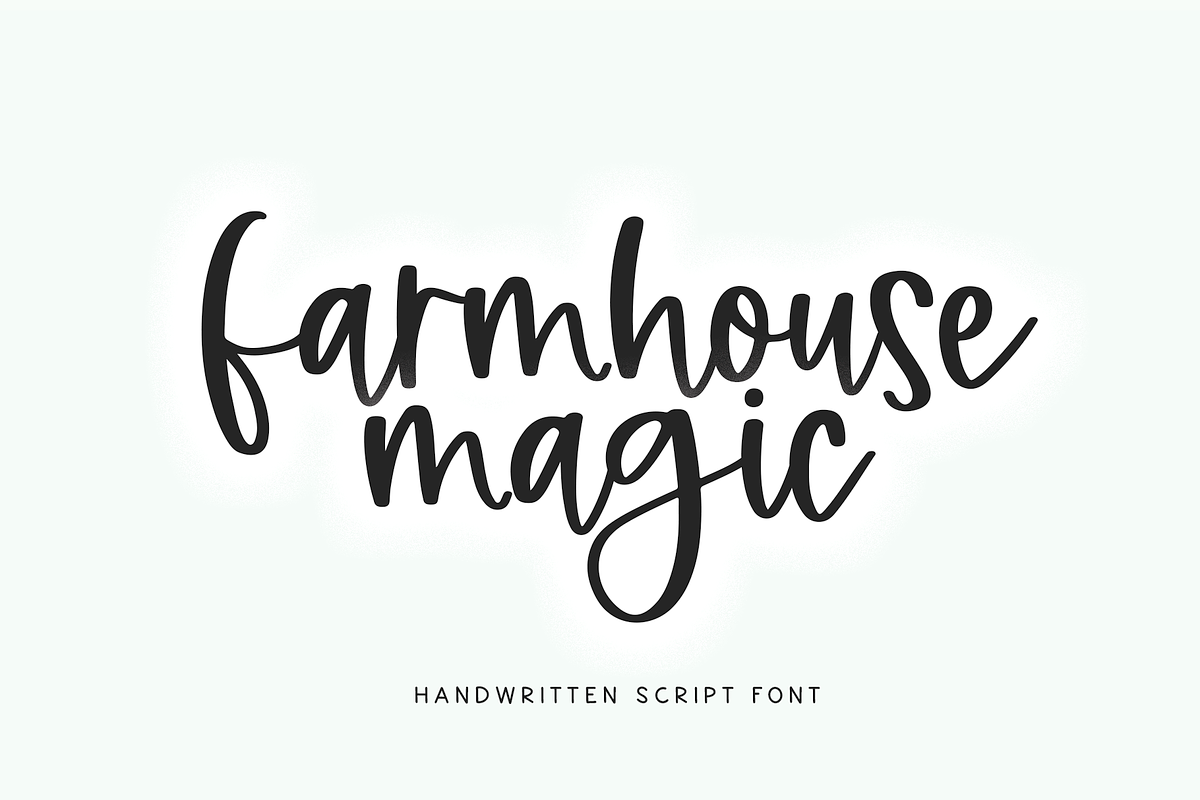
Farmhouse Magic | Modern Script Font Free Download is a charming and whimsical handwritten typeface that brings rustic elegance and cozy charm to your designs. Please note: you must purchase this font for commercial use, but you can test it through a free download. With its flowing strokes, natural curves, and heartwarming personality, Farmhouse Magic is perfect for farmhouse signs, wedding invitations, home décor prints, branding, and social media graphics.
This font captures the essence of handmade beauty—ideal for designs that need to feel warm, welcoming, and full of personality. Whether you're crafting a heartfelt quote or a rustic logo, Farmhouse Magic | Modern Script Font Free Download adds authenticity and charm to every word. Fully compatible with Adobe Illustrator, Photoshop, Canva, and more. Download it today for personal use and let your typography sparkle with the soft, handwritten style of Farmhouse Magic.